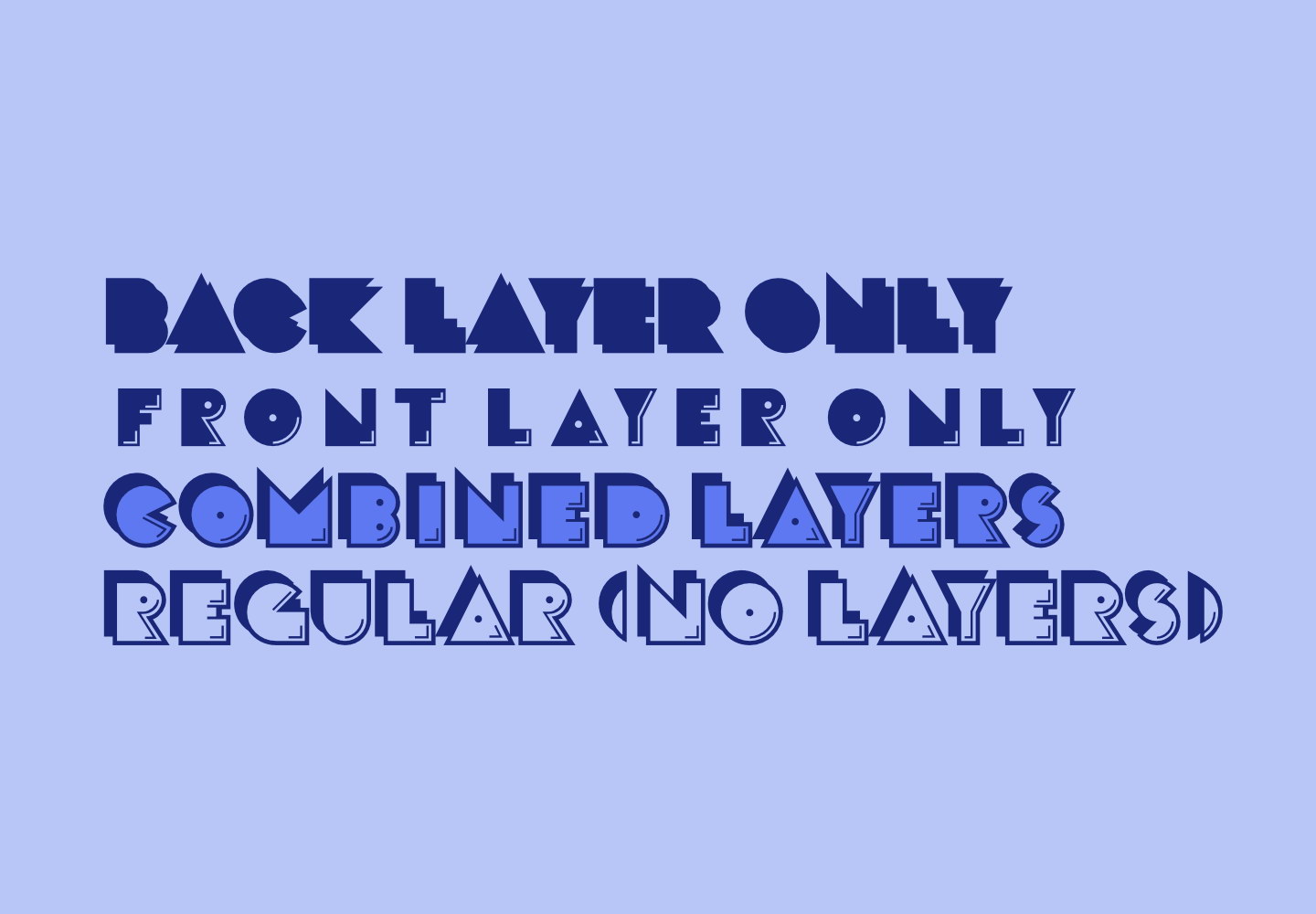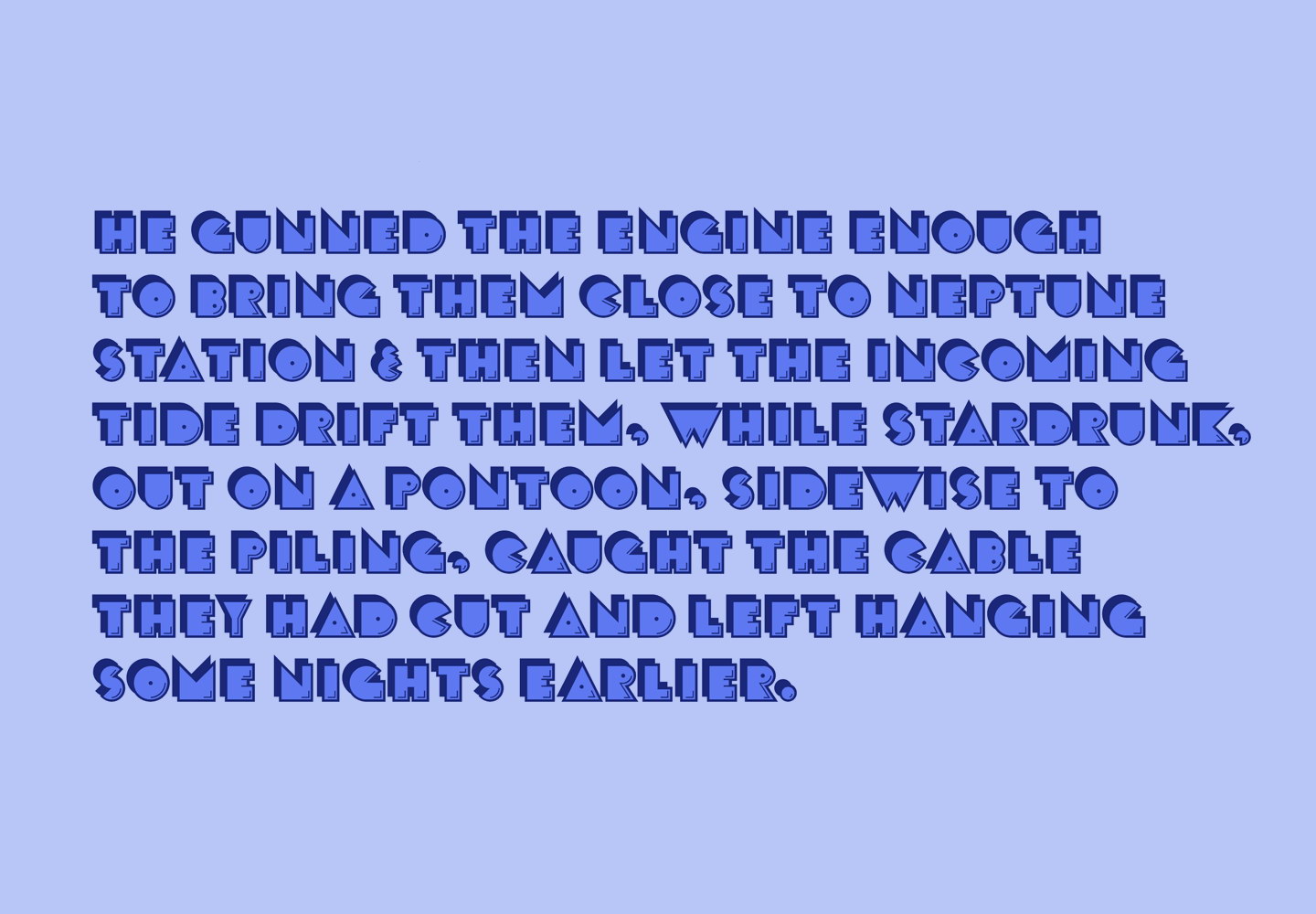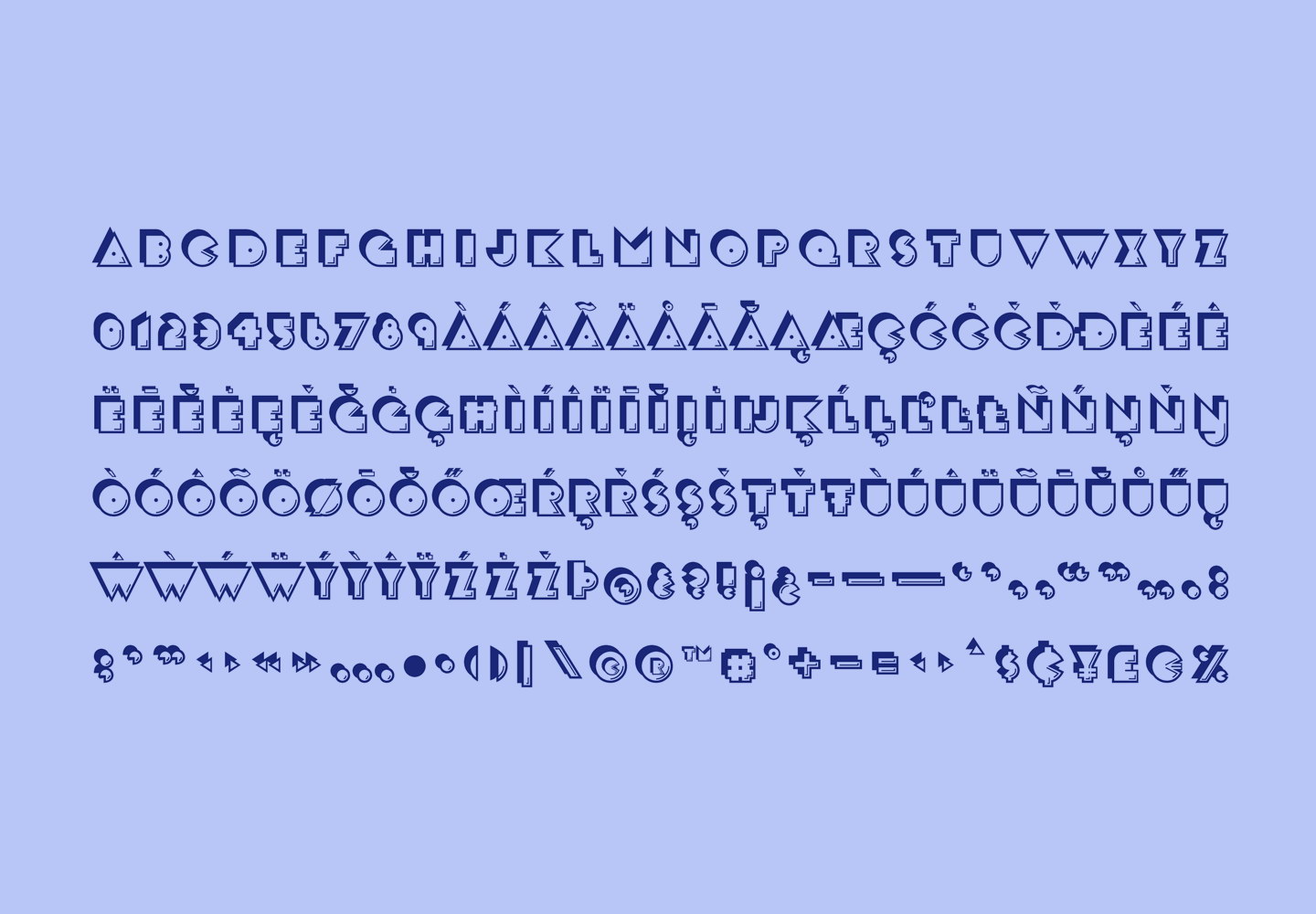
Crack Man is an eye-catching, geometric display font characterized by its bold, angular shapes and dynamic inner cutouts, giving it a modern yet playful vibe. With high contrast between thick and thin strokes and sharp edges, it suits creative branding, posters, and headlines where a striking, artistic look is desired. This font’s unique style works best in designs that want to make a strong visual impact, blending a futuristic feel with an edgy personality.
Crack Man Font
About Crack Man Font
| Font family | Crack Man Font |
| Release date | 2012-06-05 |
| Designer | Ray Larabie |